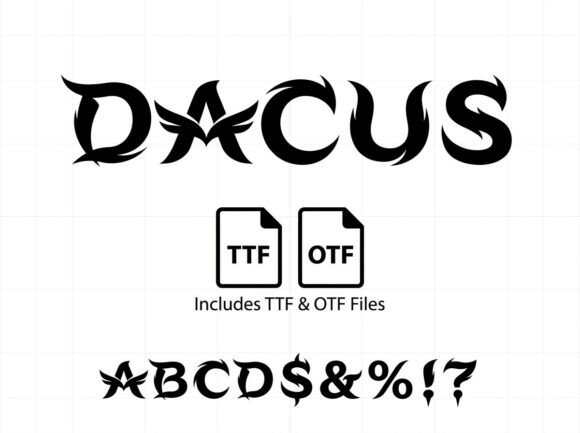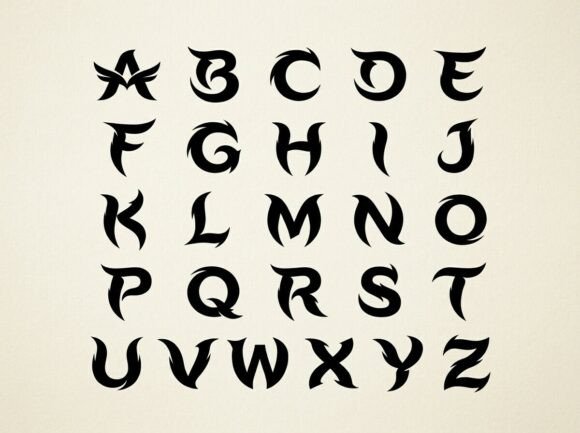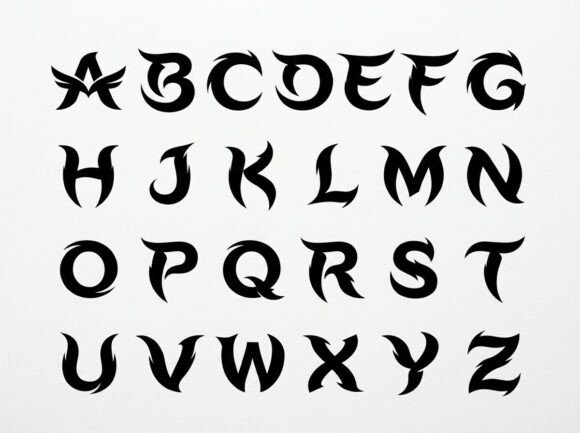
Unleash the Power of Dacus Font: A Bold and Edgy Display Typeface
In the world of typography, a font can make or break the visual identity of a brand, product, or creative project. For those seeking a typeface that exudes strength, elegance, and a touch of danger, look no further than Dacus Font. This aggressive yet refined display font is inspired by the sharp geometry of stingers and wings, making it an extraordinary choice for designers and crafters looking to command attention.
The Design of Dacus Font
Dacus Font boasts bold, blackletter-influenced characters with sweeping, razor-sharp flourishes and pointed terminals that radiate unyielding power. The balance between its heavy structural stems and the lethal, organic curves creates a sense of tension and dynamism, setting it apart from more traditional typefaces. This unique blend of strength and elegance makes Dacus Font perfect for projects that require a sense of handcrafted danger and supernatural prestige.
Perfect for Heavy Metal Branding and Dark-Themed Designs
Heavy metal branding, fantasy book titles, competitive gaming logos, and dark-themed streetwear are just a few examples of applications where Dacus Font truly shines. Its bold and edgy design elements evoke the intense energy and rebellious spirit of these genres, making it an ideal choice for designers seeking to create a lasting impression. Whether you’re creating a logo, title, or promotional material, Dacus Font is sure to turn heads and leave a lasting impact.
Key Features of Dacus Font
- Bold and Edgy Design: Dacus Font features bold, blackletter-influenced characters with sweeping, razor-sharp flourishes and pointed terminals.
- Unique Balance of Strength and Elegance: The balance between heavy structural stems and lethal, organic curves creates a sense of tension and dynamism.
- Handcrafted Danger and Supernatural Prestige: Dacus Font delivers a sense of handcrafted danger and supernatural prestige to every word.
- Versatile Applications: Suitable for heavy metal branding, fantasy book titles, competitive gaming logos, dark-themed streetwear, and more.
Tips for Using Dacus Font Effectively
To get the most out of Dacus Font, consider the following tips:
- Use it as a Display Font: Dacus Font is designed to command attention, making it perfect for headlines, titles, and promotional materials.
- Experiment with Colors and Textures: The bold design of Dacus Font lends itself well to creative color and texture combinations.
- Pair it with Contrasting Fonts: Balance the boldness of Dacus Font with contrasting fonts to create visual interest and hierarchy.
Dacus Font is a bold and edgy display typeface that is sure to command attention and leave a lasting impression. Its unique blend of strength and elegance makes it an extraordinary choice for designers and crafters seeking to add a touch of handcrafted danger and supernatural prestige to their projects. With its versatile applications and design flexibility, Dacus Font is an excellent addition to any design arsenal.
Whether you’re a designer, crafter, or simply a typography enthusiast, Dacus Font is definitely worth exploring. So why settle for ordinary fonts when you can unleash the power of Dacus Font and take your creative projects to the next level?